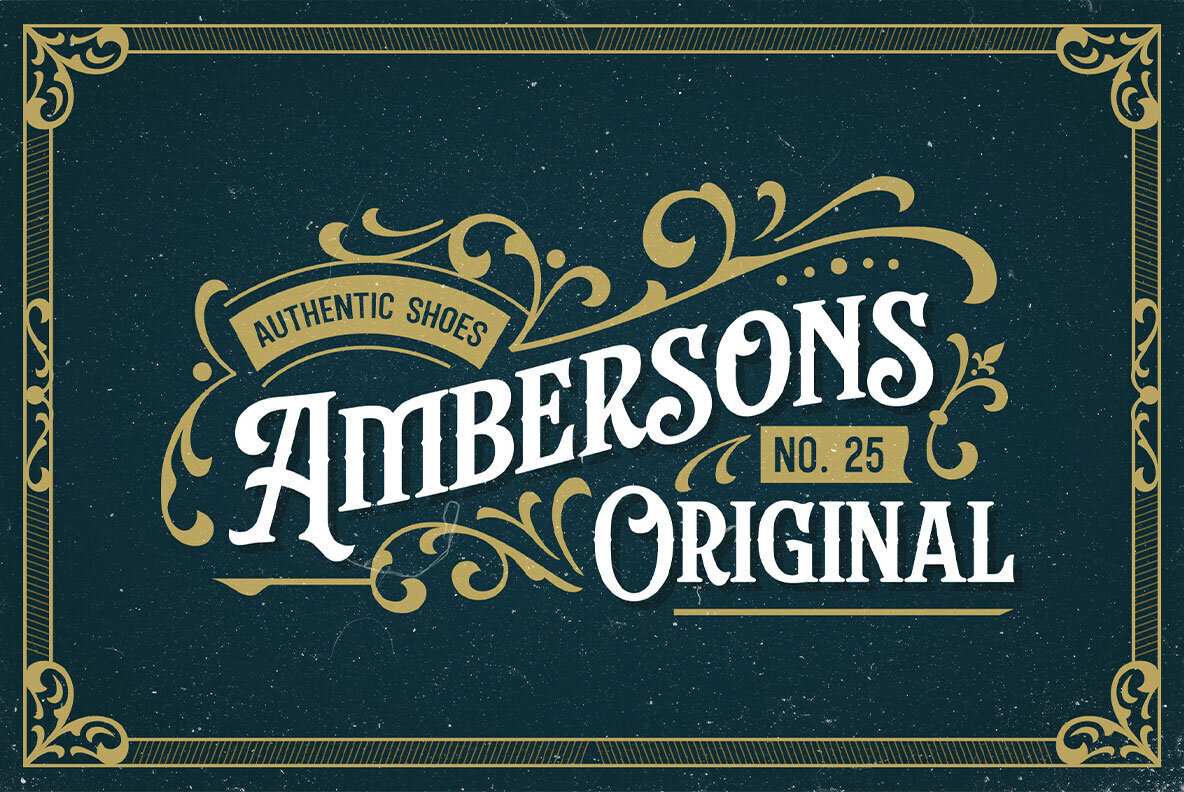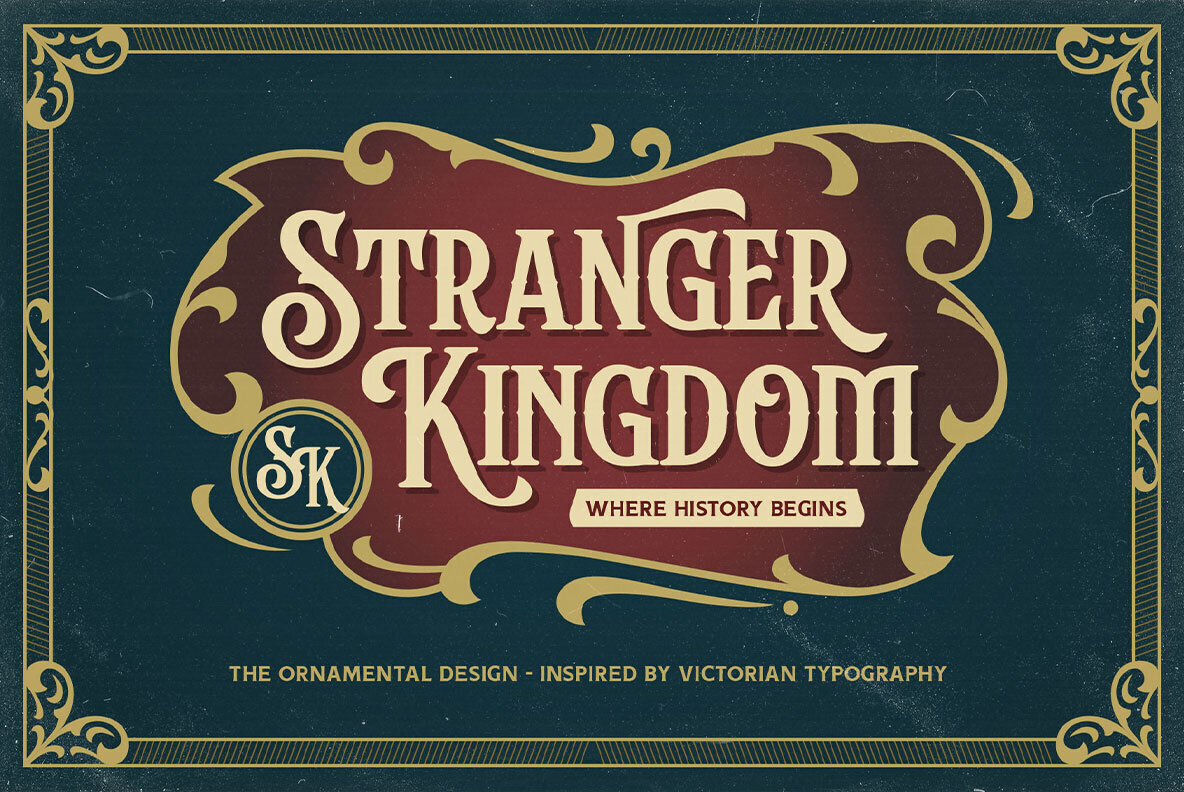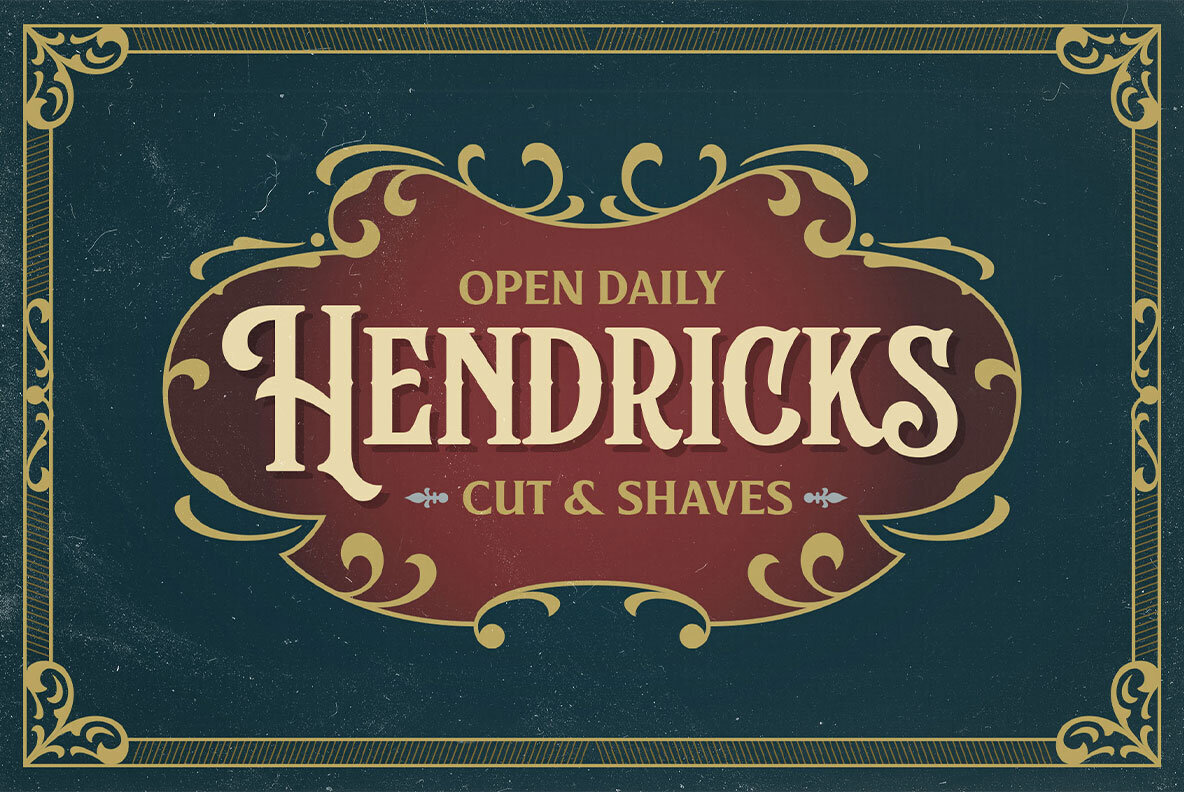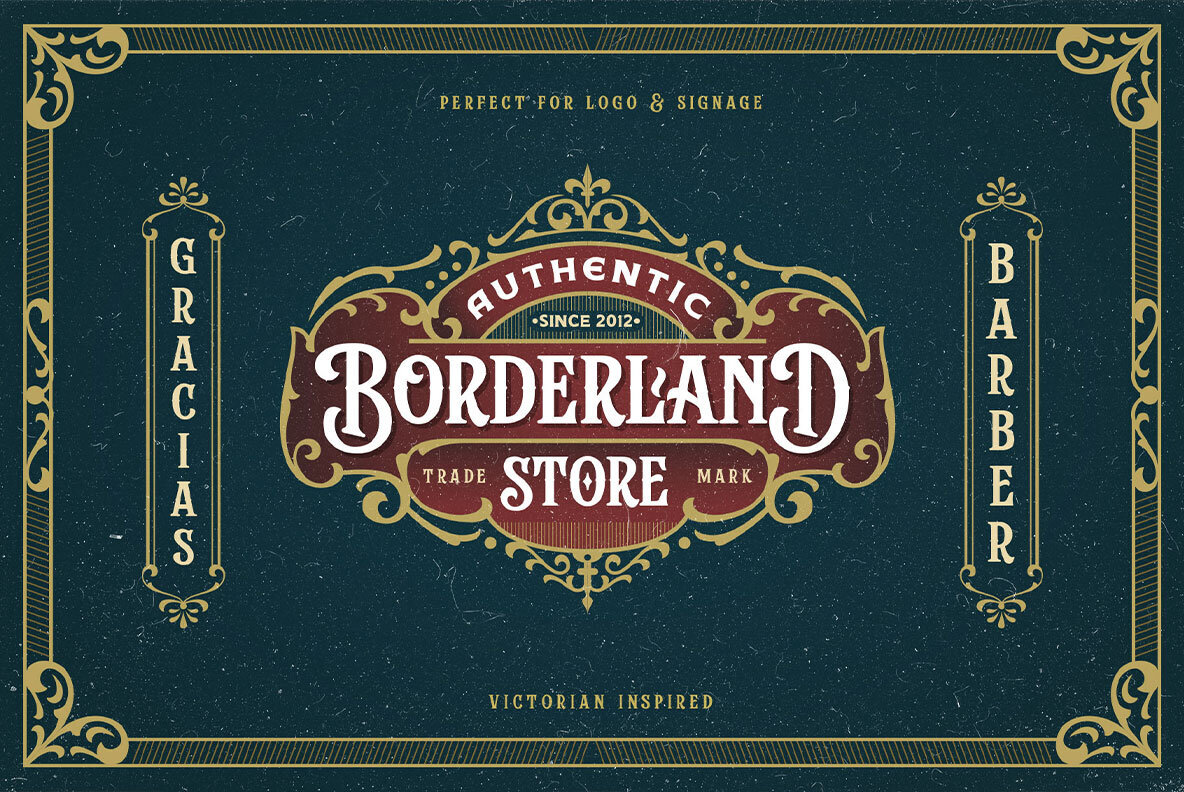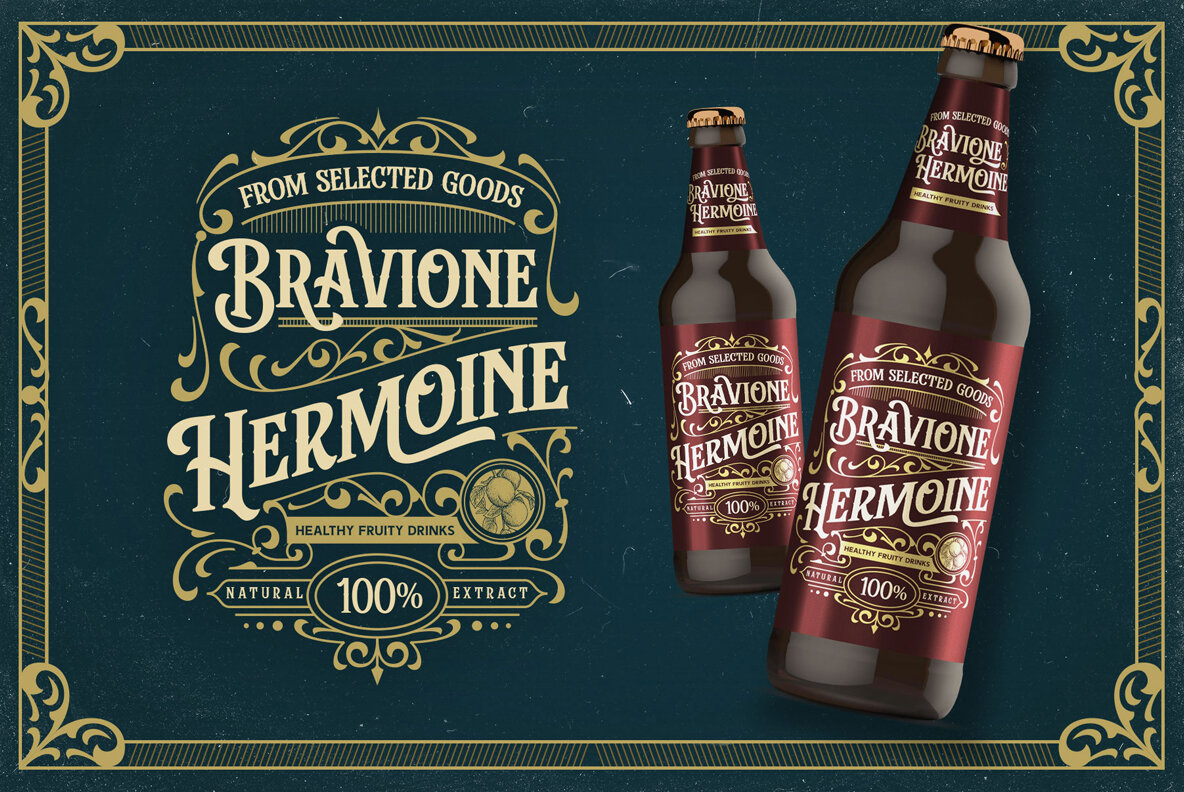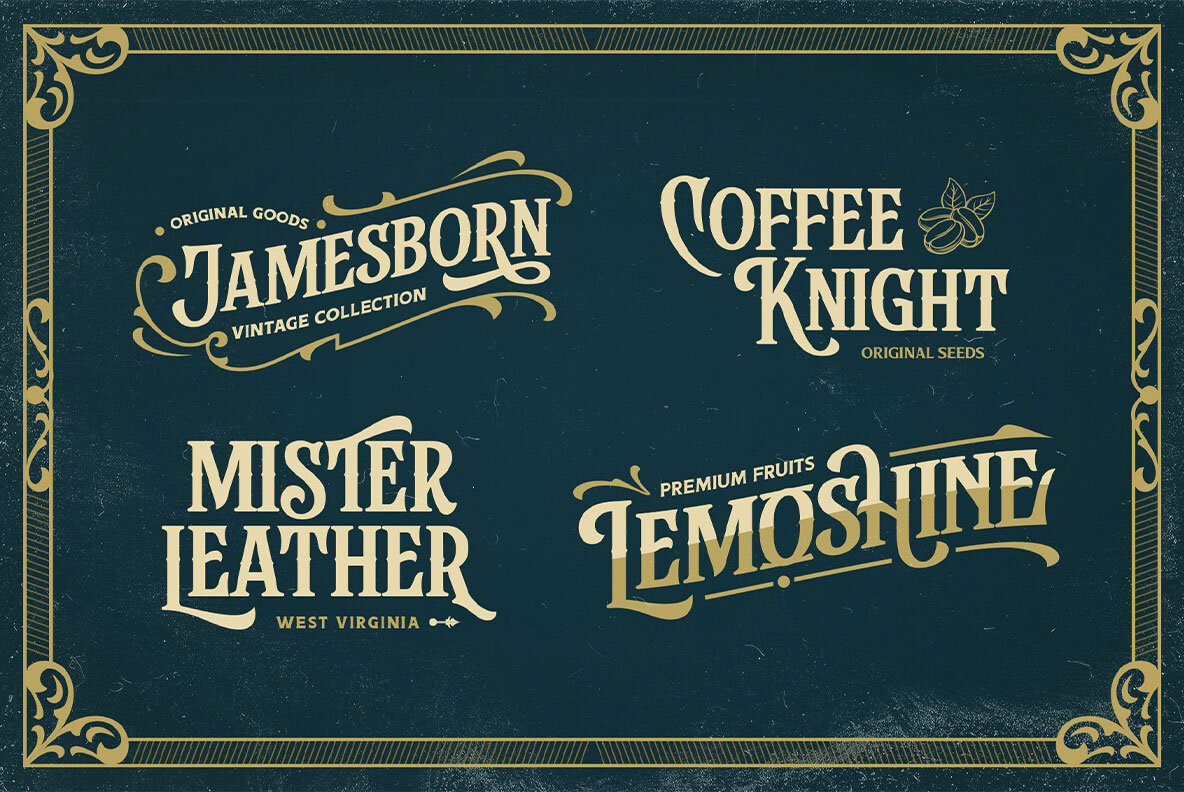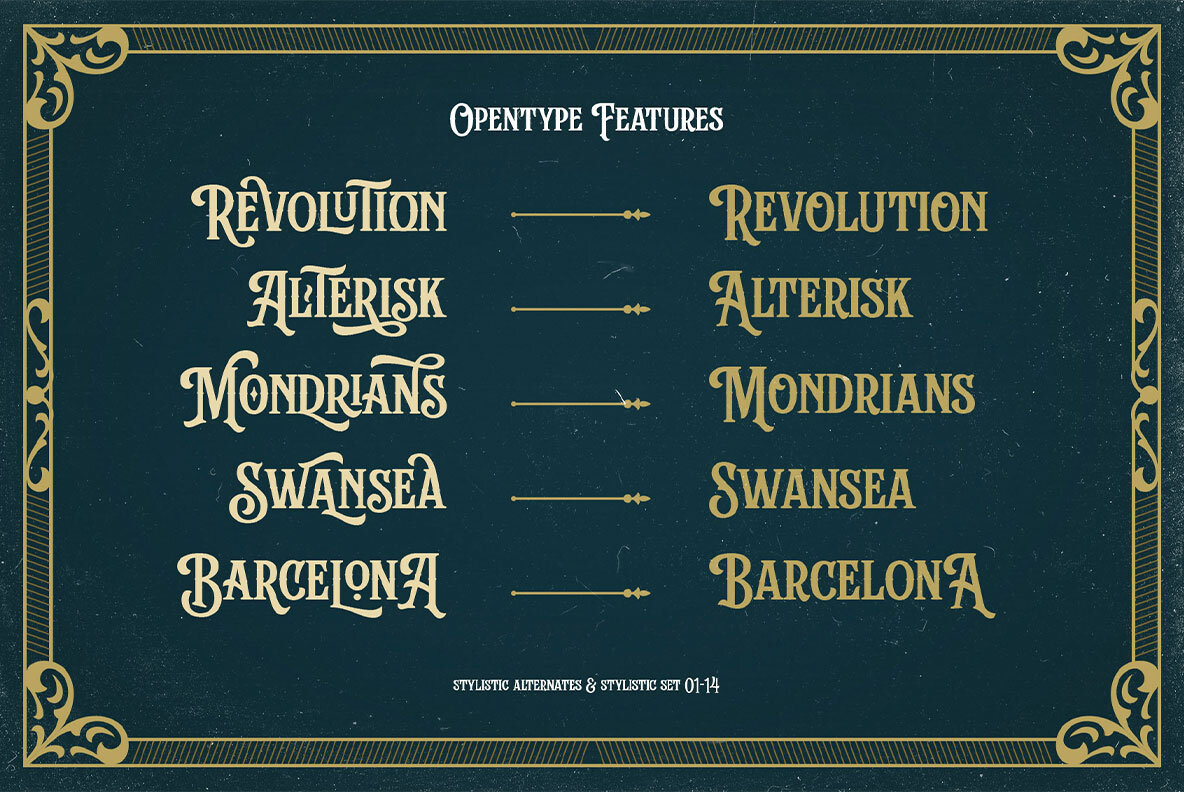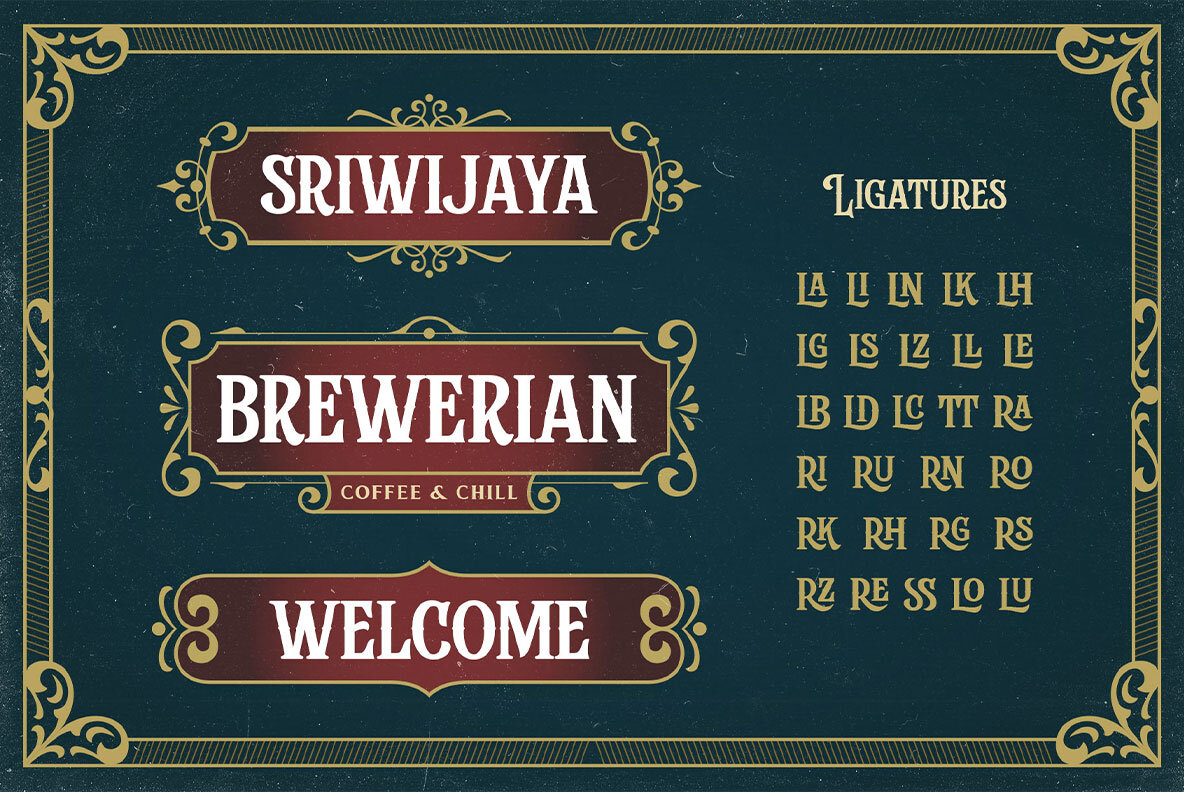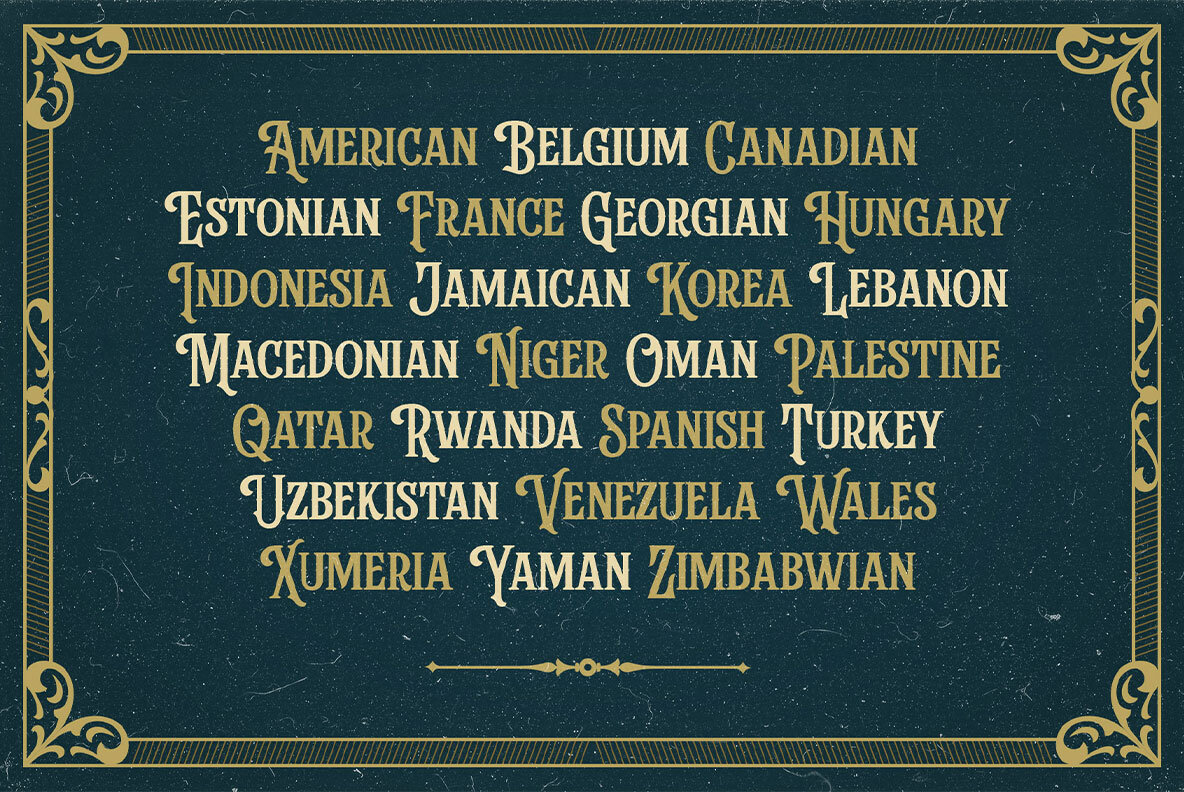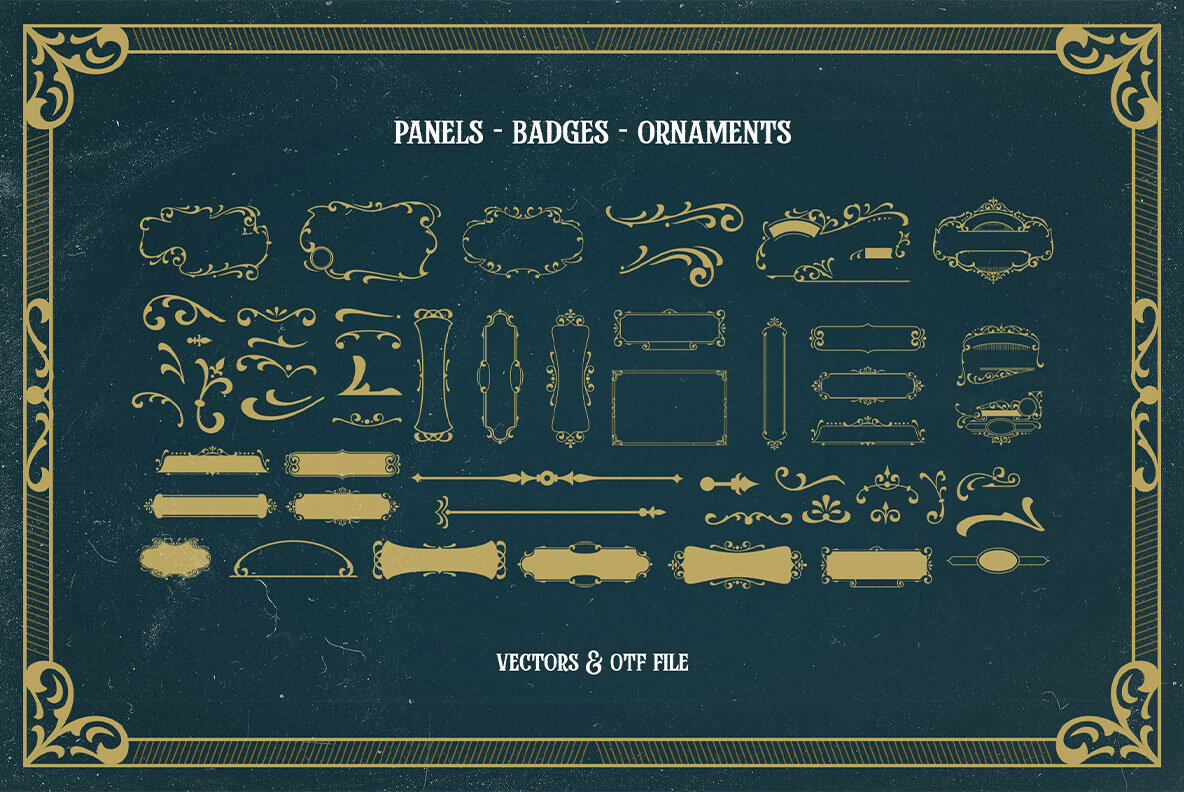
Stanford Breath 1
Stanford Breath is a decorative font that draws inspiration from the typography and design of old-fashioned advertisements. This highly ornate script has strong looks with rounded serifs, all caps letters, as well as some extra details.